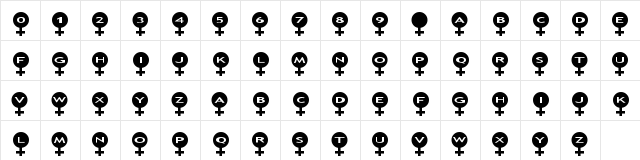
AlphaShapes female Normal Free Font
AlphaShapes female Normal
Design Context for AlphaShapes female
AlphaShapes female is a composed and adaptable typeface that performs quietly and consistently across a wide range of design contexts.